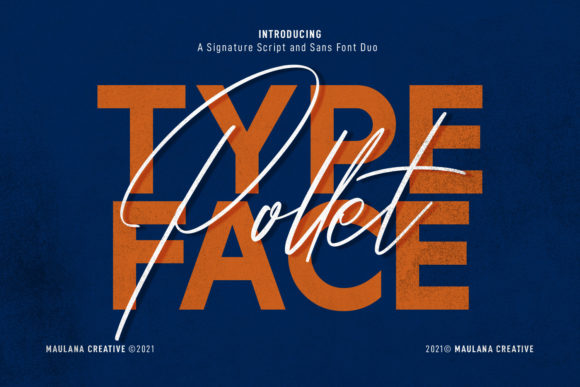
Introducing Pollet Signature Font - The Bold Choice for Creative Expression
Prepare to be captivated by Pollet Signature Font - an enchanting symphony of handwritten and sans excellence, orchestrated by the maestro Maulana Creative. Pollet is not just a font; it's an artistic voyage that will transform your creative endeavors into masterpieces.
Unleash the Power of Bold Headings:
In a world of digital noise, it's your headings that command attention, seize the spotlight, and leave an indelible mark on your audience. Pollet's innate boldness is the secret weapon you need to craft headings that resonate with power and confidence. Watch as your words leap off the screen, demanding attention and captivating hearts.
Craft Unforgettable Logos:
Your logo is the cornerstone of your brand identity, the visual ambassador that speaks volumes about your essence. With Pollet's graceful curves and dynamic strokes, you can create logos that exude sophistication, originality, and timeless appeal. Let Pollet be the artistic brush that paints a picture of your brand's story, leaving an unforgettable impression on every encounter.
Elevate Social Media Posts:
In the vibrant realm of social media, where engagement is king, Pollet is your secret weapon to stand out from the crowd. Its visually striking presence will transform your posts into captivating works of art, enchanting your audience and leaving them craving more. Pollet's expressive nature will breathe life into your messages, making them resonate with emotion and authenticity.
Create Cinematic Titles:
Immerse your audience in a cinematic experience with Pollet's enchanting essence. Let its bold strokes dance across movie and book titles, captivating attention and setting the stage for an unforgettable journey. Pollet's expressive nature will transport your audience to the heart of your story, creating an emotional connection that lingers long after the credits roll.
The Perfect Font for Creative Projects:
Pollet Signature Font is the artistic chameleon that effortlessly adapts to any creative project you envision. Whether you're designing stunning invitations, crafting heartfelt greeting cards, or creating eye-catching posters, Pollet's versatility knows no bounds. Its ability to seamlessly blend with various design elements makes it the perfect choice for projects that demand both creativity and impact.